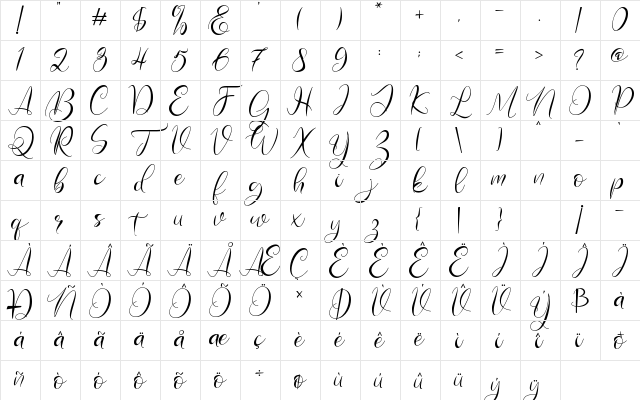
Complete Gamos Regular glyph index. Displaying only characters natively supported by Gamos Regular font.
Gamos is a composed and adaptable typeface that performs quietly and consistently across a wide range of design contexts.